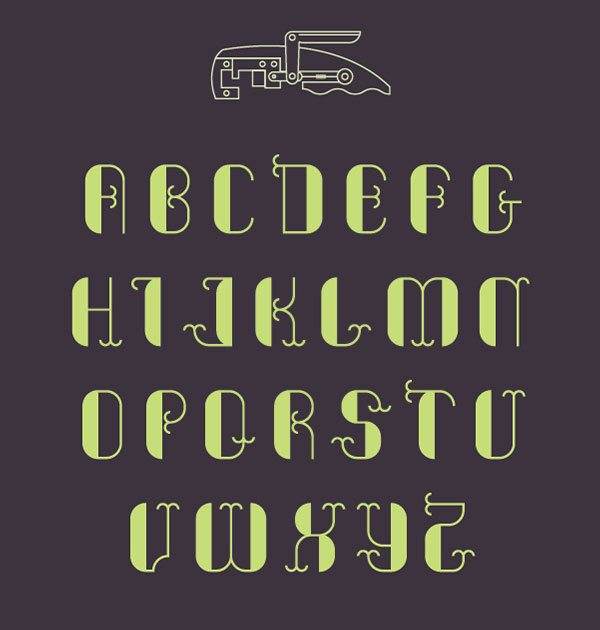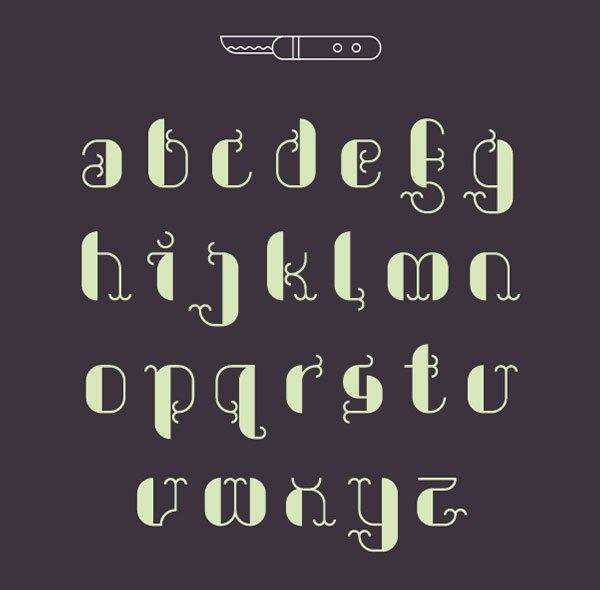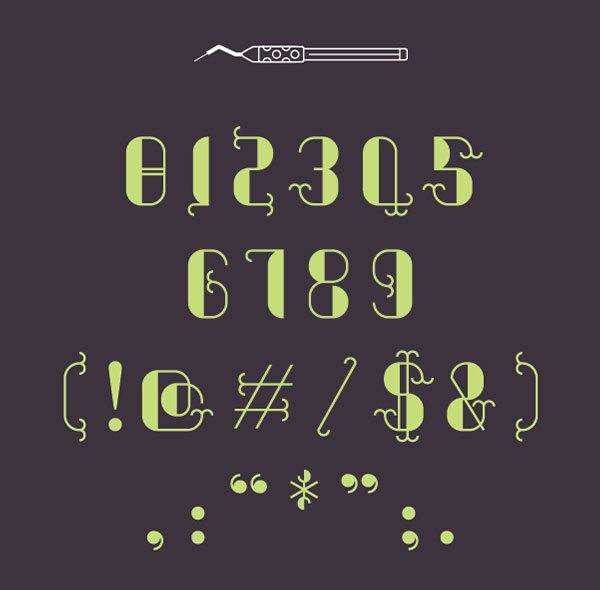
The Font is a custom font inspired by one of our favourite activities – gardening. We love how grafting opens up a world of possibilities. It’s so magical to us – we hope to have captured some of its essence in our font. Grafter is free for all non-commerical uses.